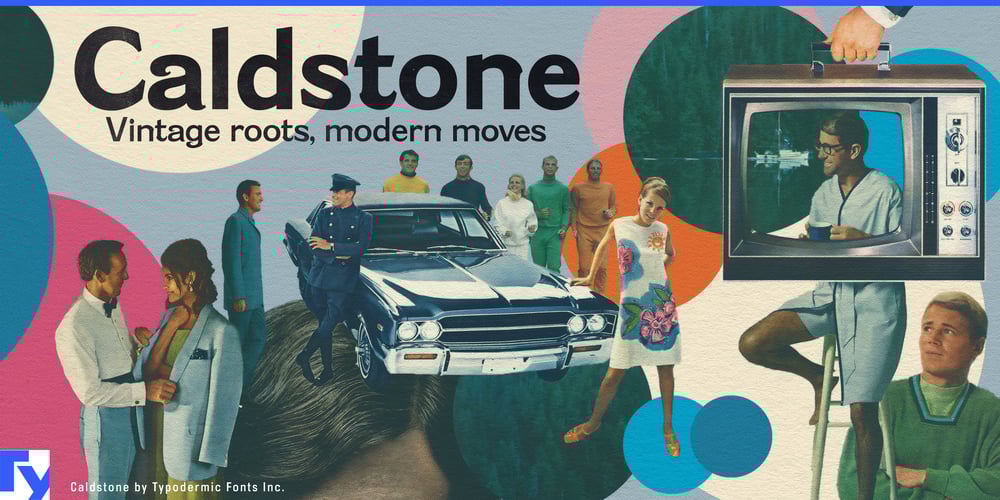
Caldstone
Caldstone font
Caldstone Font Family was designed by Ray Larabie and published by Typodermic. Caldstone contains 66 styles and family package options. In a design world often dominated by minimalist sans-serifs, Caldstone offers a refreshing departure. Inspired by the expressive sans-serif lettering styles of the 1910s, Caldstone bridges the past and present with a unique warmth and charm that feels right at home in modern design. It’s not just a revival, nor a copy of any antique typeface; it’s a reimagining of historical inspiration through a contemporary lens.Caldstone’s roots trace back to the revival of Edwardian visual themes during the late 1960s counterculture movement. This period saw a nostalgic embrace of ragtime music, kaleidoscopic art, and ornate design motifs, offering an antidote to the rigid modernist aesthetics of the mid-20th century. In the same spirit, Caldstone captures the whimsy and exuberance of that era while embracing the precision and versatility demanded by today’s designers. With subtle curls, distinctive spurs, and hints of short serif influences from designs like Della Robbia and Windsor, Caldstone transforms these elements into a sans-serif with a personality that’s both playful and professional.The cultural parallels are striking. As we approach the mid-21st century, we see echoes of the counterculture’s response to modernism in today’s reaction against cold, hyper-technical design. Caldstone answers the call for warmth, individuality, and style in a time where human connection feels more essential than ever. Caldstone’s versatility is unmatched, with 80 meticulously crafted styles that cater to a wide range of creative needs. Whether you’re looking for the delicacy of Condensed Hairline or the commanding presence of Black Expanded, Caldstone delivers. Its comprehensive range includes three widths (Condensed, Normal, and Expanded) and weights ranging from Hairline to Black, all complemented by matching italics.More than just a nod to history, Caldstone is designed for the demands of contemporary design work. Whether you’re crafting striking headlines, elegant editorial layouts, or user-friendly interfaces, Caldstone offers the flexibility and character to make your message stand out. It’s a true workhorse typeface—one that combines timeless inspiration with 21st-century functionality.In a landscape filled with antique font revivals, Caldstone stands apart as an original creation that’s ready to tackle the challenges of modern design. With its blend of historic charm and modern practicality, it’s poised to become an indispensable tool. Caldstone doesn’t just fit into the narrative of design—it helps you write a new one.